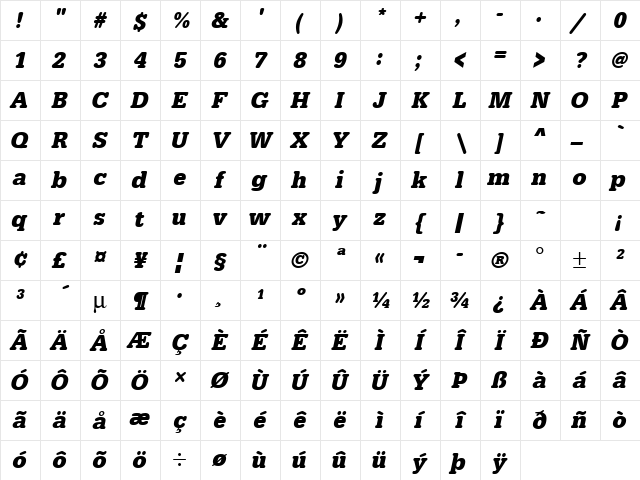
Complete URWTypewriterTNar Bold Oblique glyph index. Displaying only characters natively supported by URWTypewriterTNar Bold Oblique font.
URWTypewriterTNar uses fixed-width spacing throughout, giving it the structured, systematic character associated with coding environments and technical documentation. The slanted form adds forward momentum and visual energy. Its bold stroke weight gives it real presence on the page.
Pro Tip: Use URWTypewriterTNar with slightly increased line-height for extended reading - fixed-width spacing can feel dense in longer passages without extra breathing room.